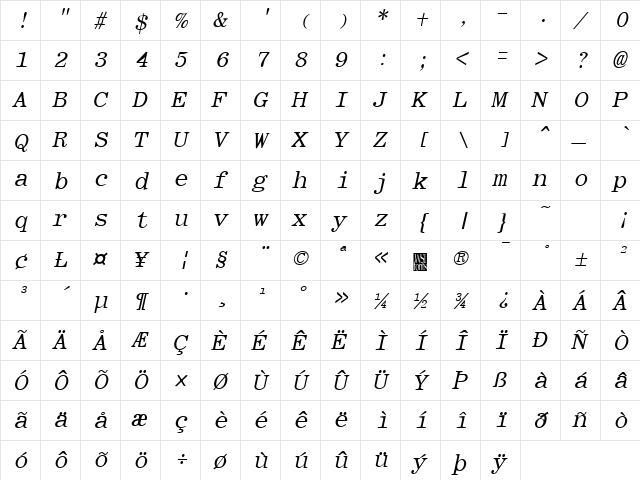
RomanFixedWidth Italic
Design Context for RomanFixedWidth Typeface
RomanFixedWidth offers clean, dependable letterforms without strong stylistic allegiance, making it a practical choice for designers who need flexibility. The dynamic lean of this cut emphasises speed and emphasis in any layout.
Pro Tip: Try RomanFixedWidth for annotation and caption copy alongside an upright companion — the contrast in angle creates a dynamic but ordered typographic system.